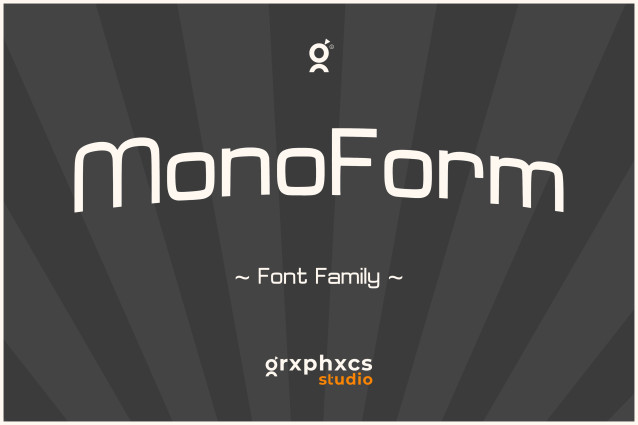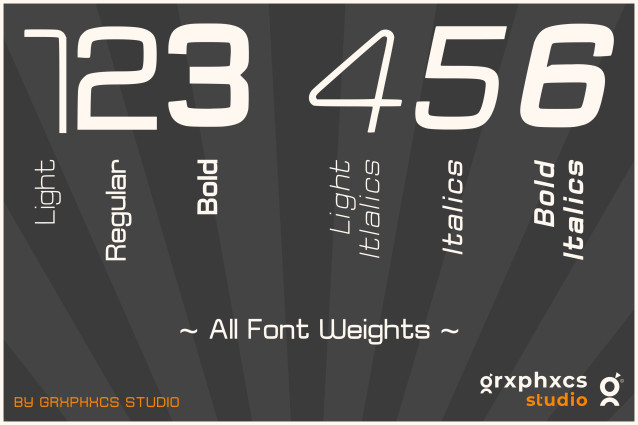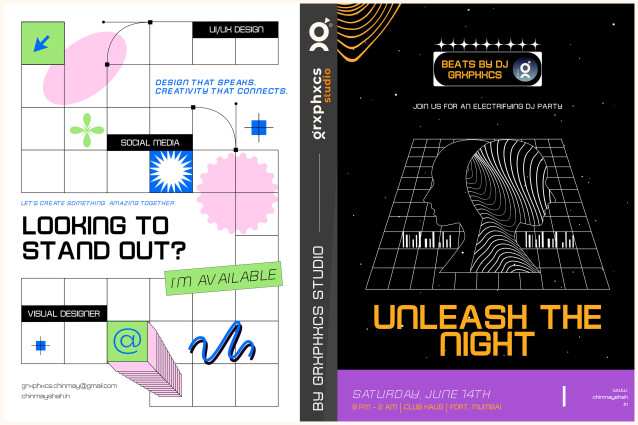
Monoform Font Family
Monoform Font Family a bold statement with our latest sans-serif font. With its clean lines and modern appeal, this font is sure to turn heads and leave a lasting impression. Perfect for headlines, logos, and any design that demands attention. It is both functional and stylish, making it a versatile choice for a wide range of design projects.